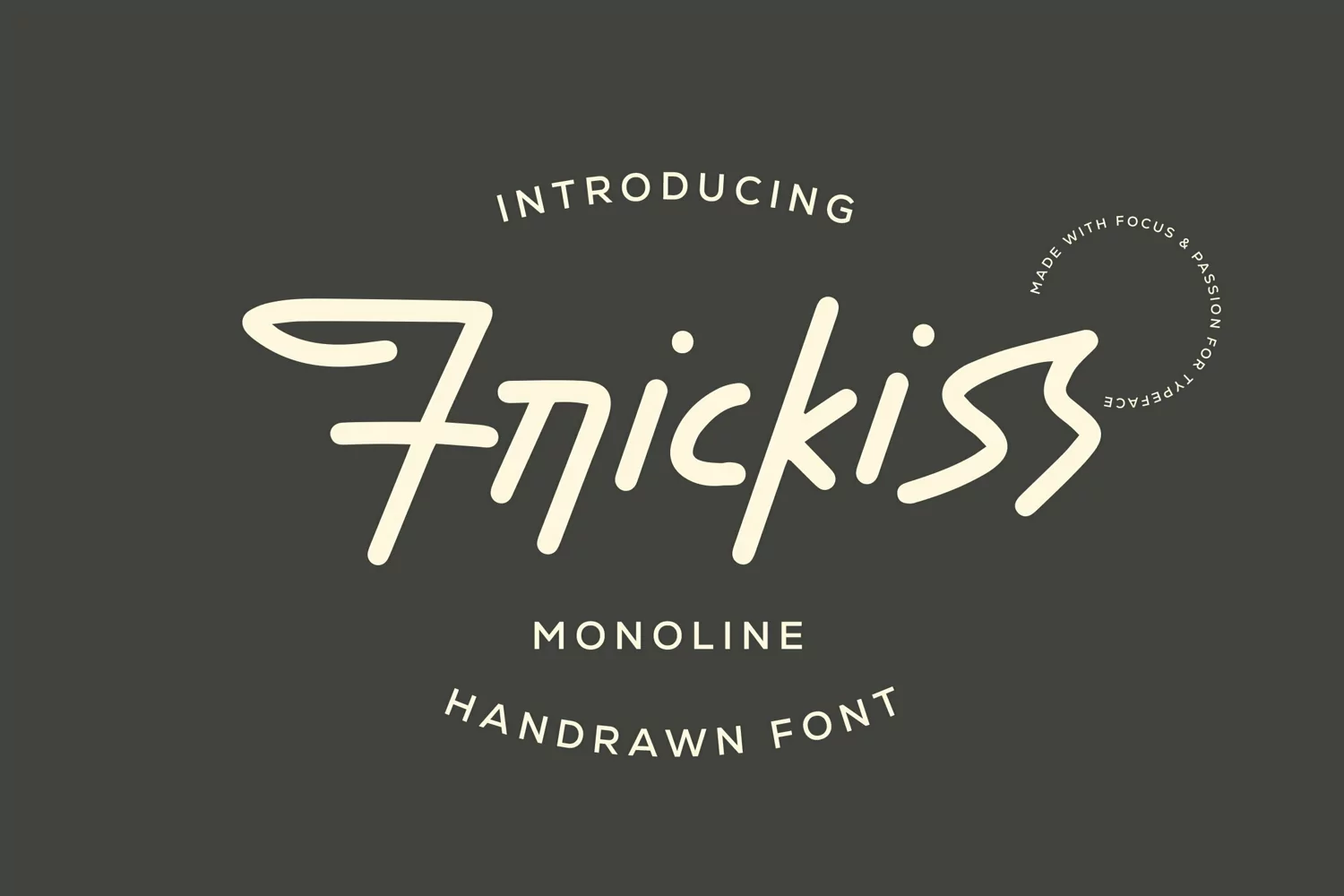
Frickiss - Monoline Handrawn Font that contain lowercase, uppercase, symbol, and also support multi language. There’s a lot ligatures in this font. This Font also comes with ligatures, alternates and many more. this font suitable for fashion, branding, catalog and other design what you want.